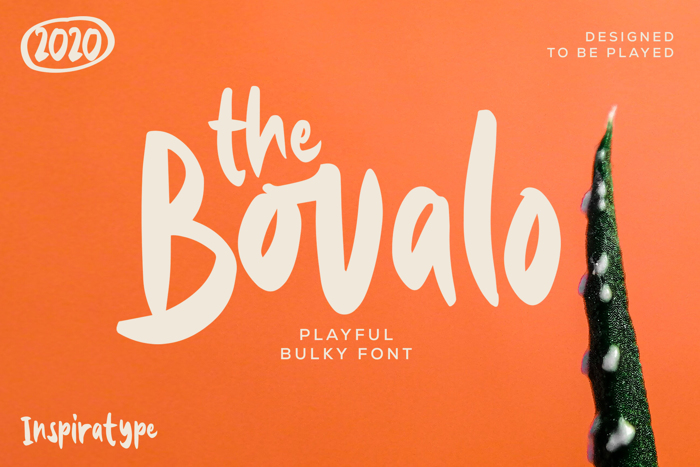
The Bovalo Font
"The Bovalo" is a font display is made by hand, inspired by classic posters.
comes with uppercase, lowercase, numerals, punctuations and so many variations on each character include OpenType alternates, common ligatures and also additional swash to let you customize your designs. Perfect to use for Logotype, Letterhead, Poster, Apparel Design, Label and etc.